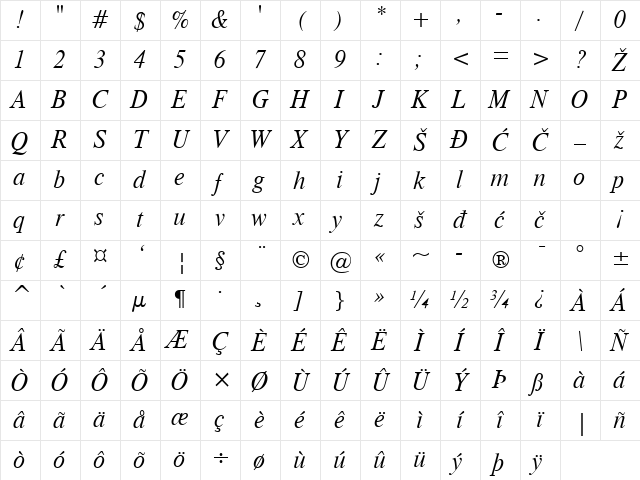
TorontoHeadline Italic
TorontoHeadline Family
Design Context for TorontoHeadline
TorontoHeadline is a composed and adaptable typeface that performs quietly and consistently across a wide range of design contexts. The slanted form adds forward momentum and visual energy.
Pro Tip: Use TorontoHeadline for emphasis, pull quotes, and subheadings where its slanted energy can add rhythm to the layout.